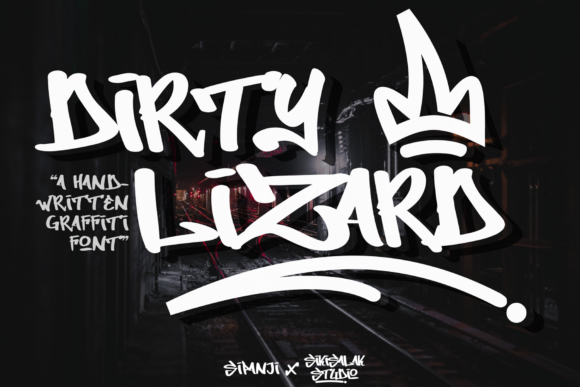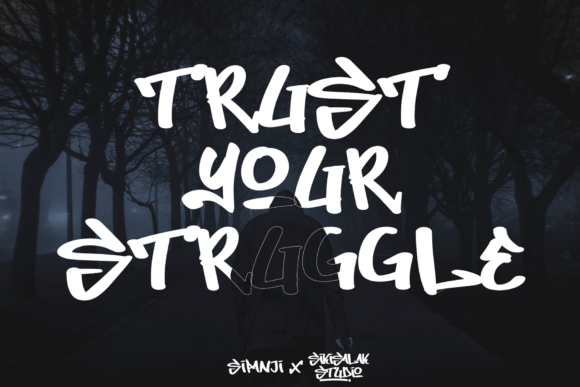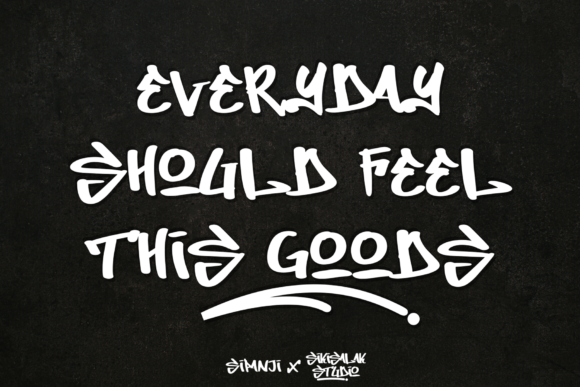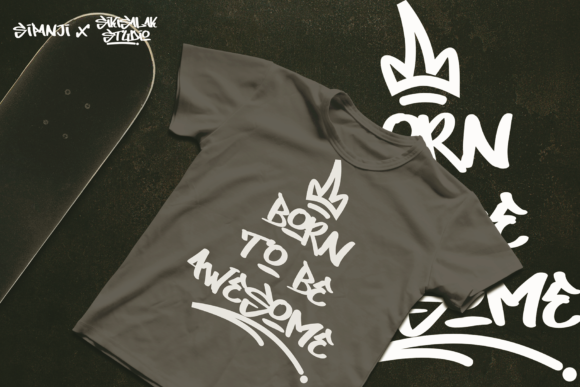
Dirty Lizard Graffiti Font
About the Dirty Lizard Graffiti Font
The wait is over! The incredible Dirty Lizard Graffiti Font is now available for your design toolkit. Dirty Lizard is a display font with a graffiti style. It will elevate a wide range of design projects to the highest level, be it branding, headings, wedding designs, invitations, signatures, logos, labels, and much more!
Dirty Lizard excels as a display font for headlines, posters, and short impactful text in branding materials. Its strong, rebellious character makes it ideal for projects targeting a young, urban, or edgy audience. Avoid using it for body text or lengthy paragraphs; its highly stylized nature hinders readability in smaller sizes.
For a balanced design, pair Dirty Lizard with a clean sans-serif like Montserrat or a more geometric sans-serif such as Futura for contrast. A simple serif like Playfair Display could also work, providing a sophisticated counterpoint to the font’s raw energy.
The font’s core personality is bold and rebellious, conveying a sense of urban grit and raw energy. It’s best suited for brands aiming for a street-smart, edgy image.
Dirty Lizard Graffiti Font Usage Examples
Dirty Lizard Graffiti Font Example